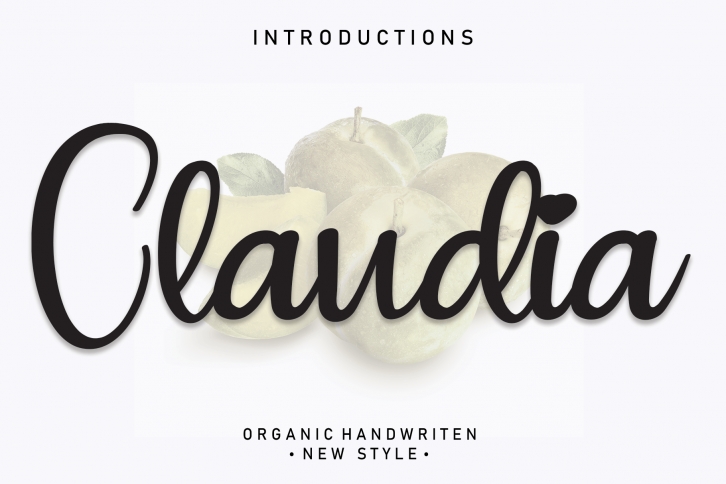
Claudia is a fun and friendly handwritten font. Whether you’re using it for crafts, digital design, presentations, or creating greeting cards, this font has the potential to become your favorite font, whatever the occasion!